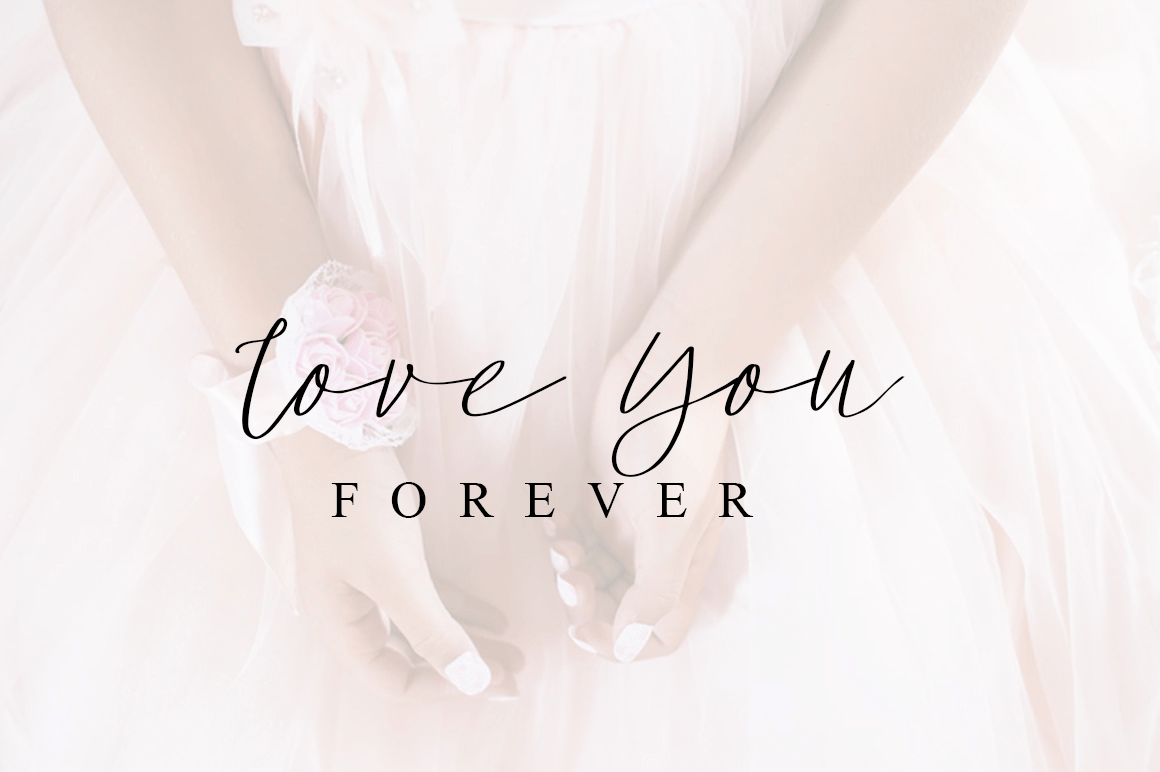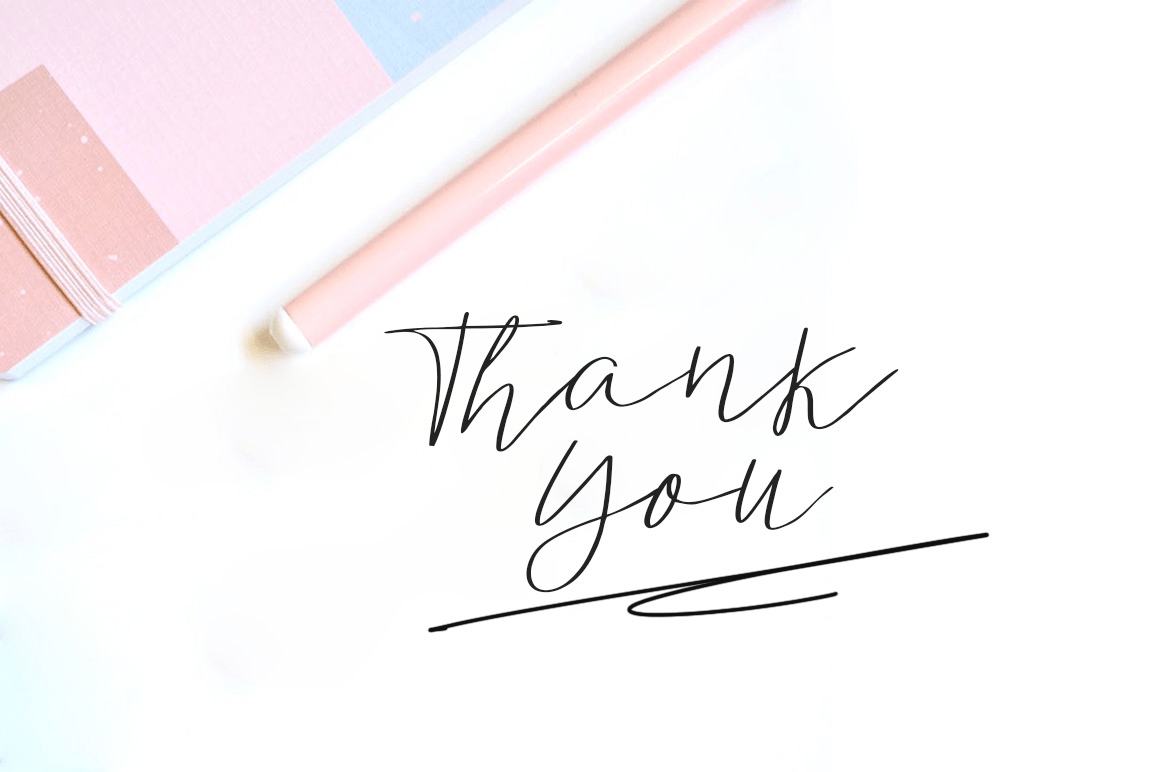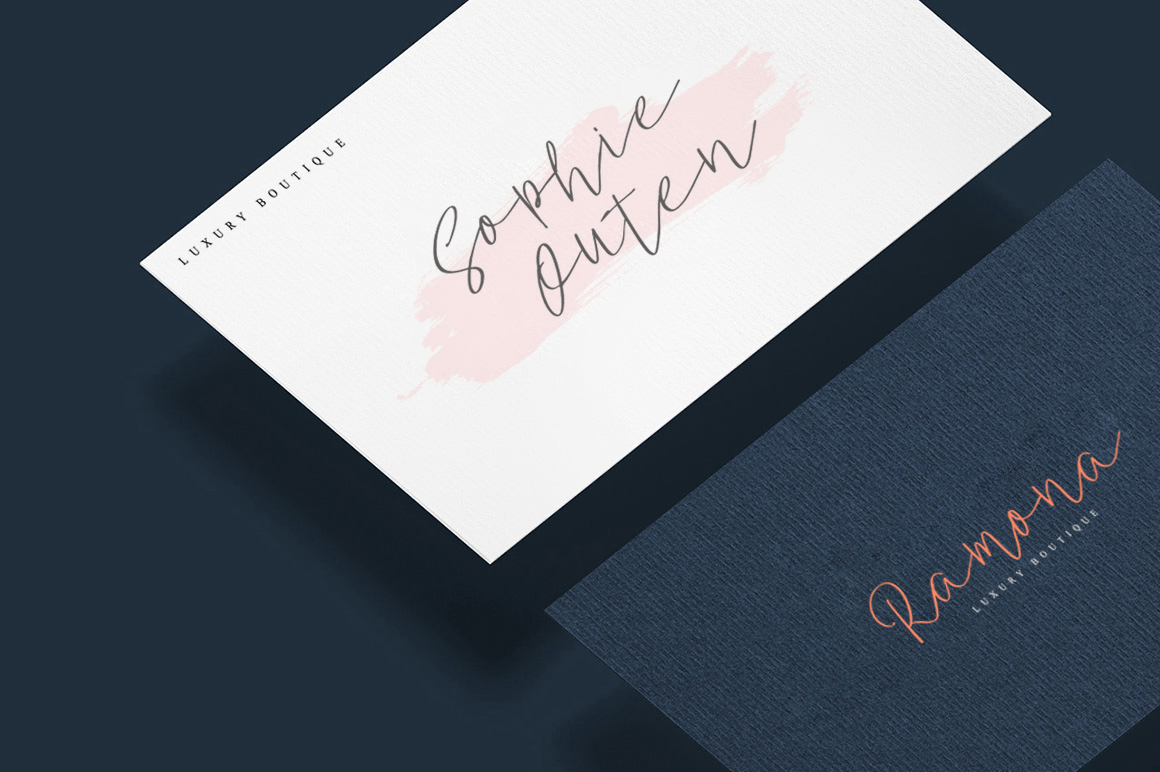
About Analisa
Analisa is Minimalist signature font. this font perfect for adding some romance and charm to your designs. This script functions most strongly as a display or headline font. suitable for logo, logotype, branding, fashion, label, book cover, t-shirt, instagram…